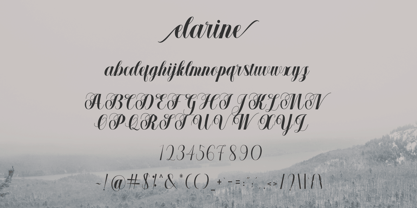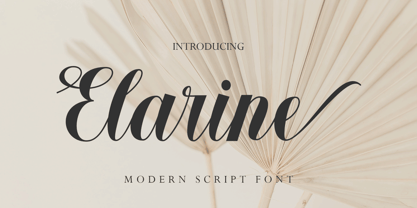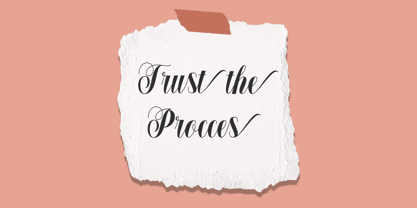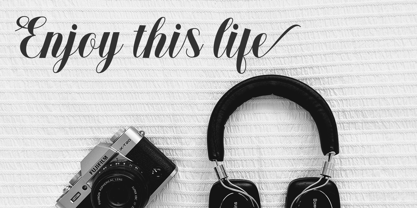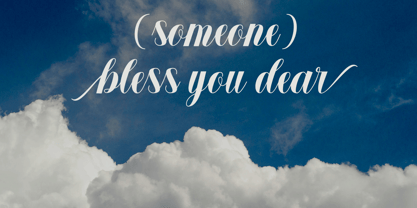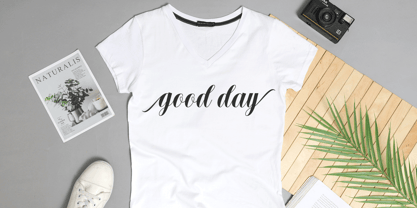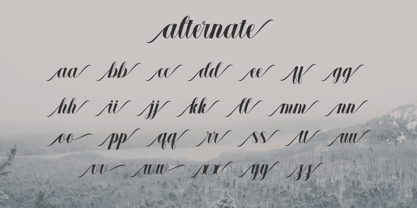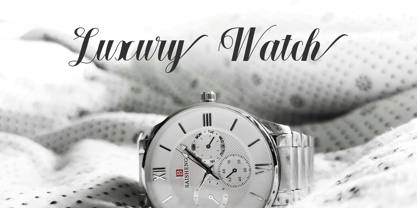
Elarine
by Trick Type Style
The Elarine Font Family was designed by Rizki Ramadhan and published by Trick Type Style. Elarine contains 1 styles. More about this family
ELARINE is a cute, versatile, and flexible handwritten font. Warm, romantic, and jovial, this font will turn any of your project ideas into real works of art. This font is PUA coded which means you can access all the glyphs and swashes easily, this font is complete with language support!